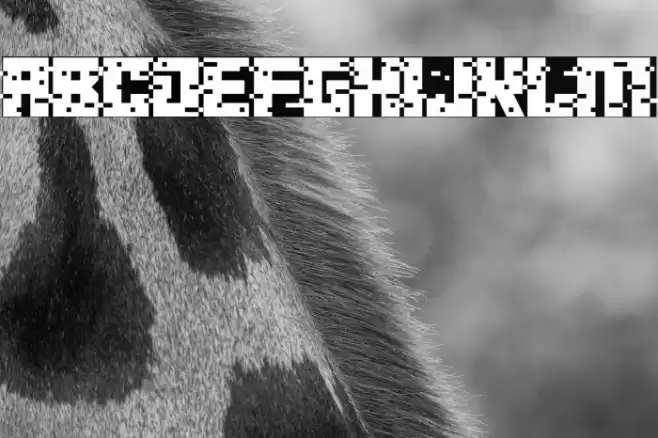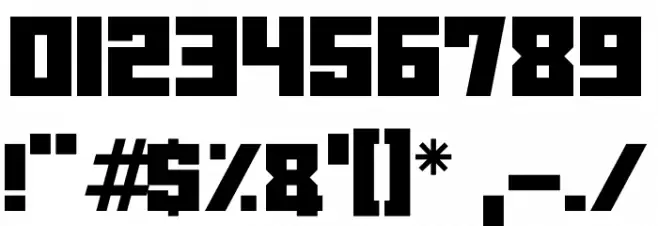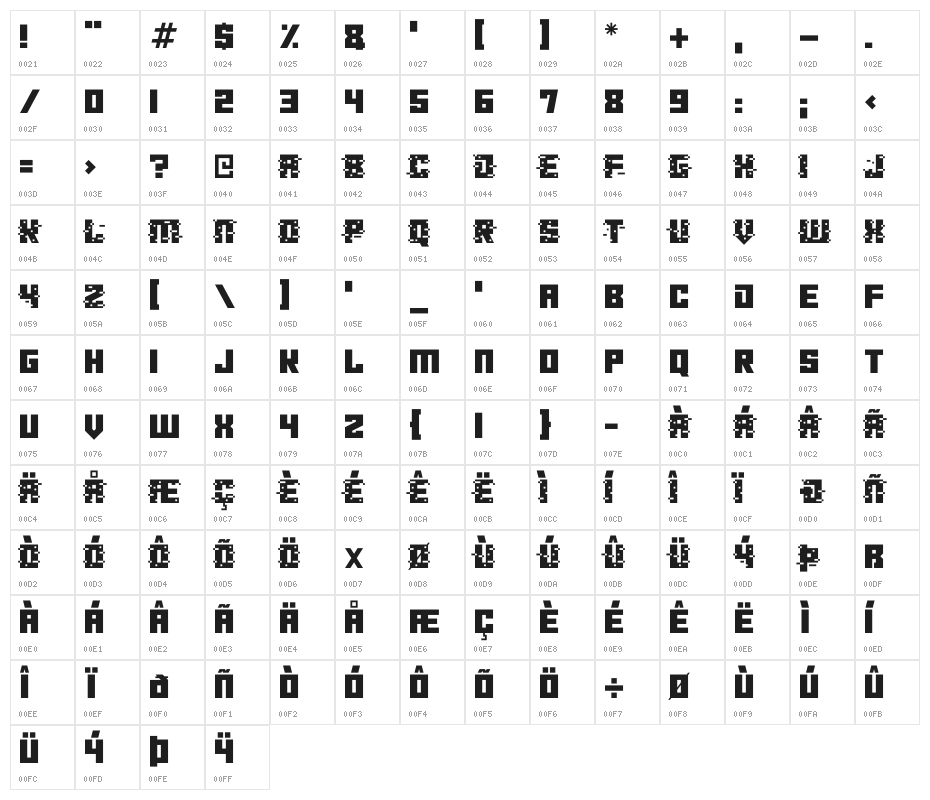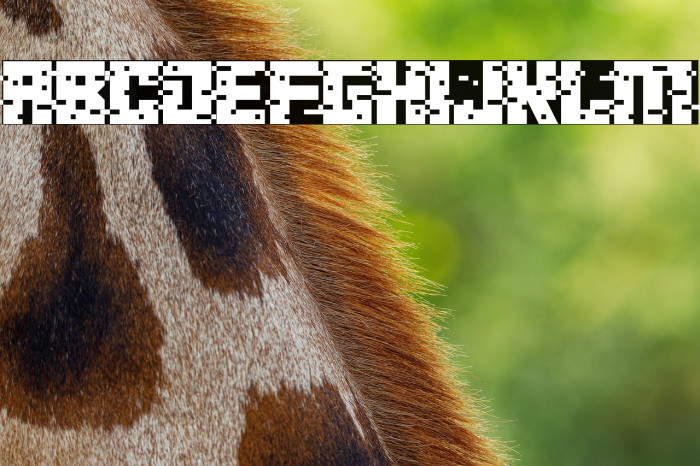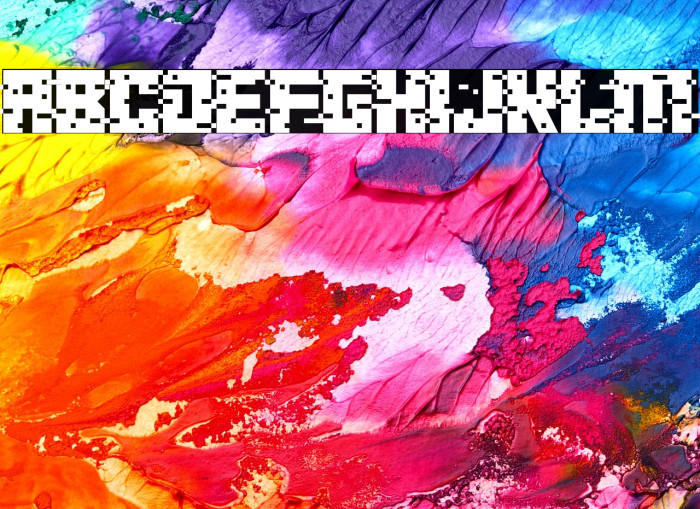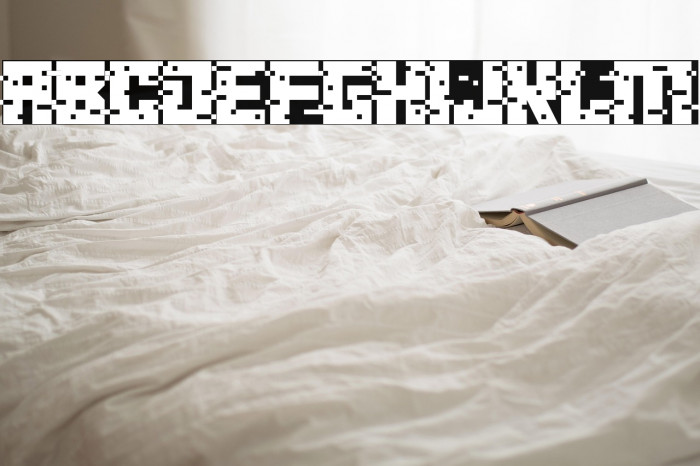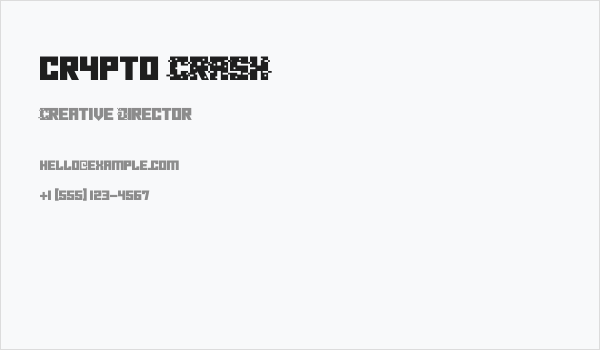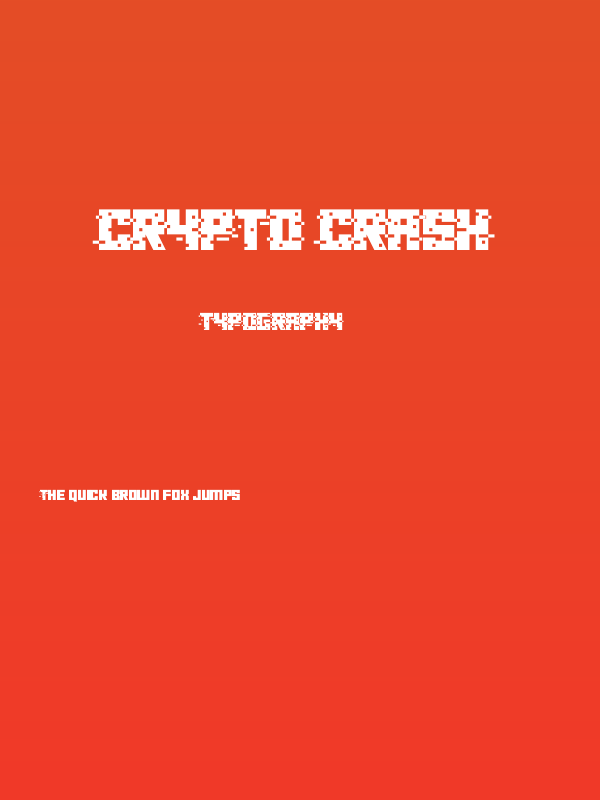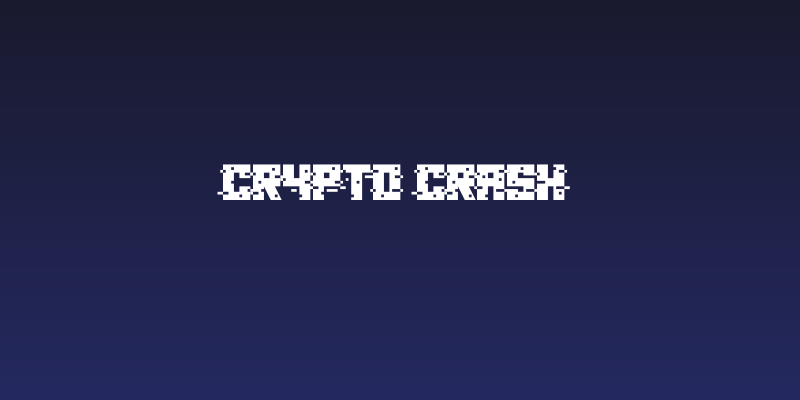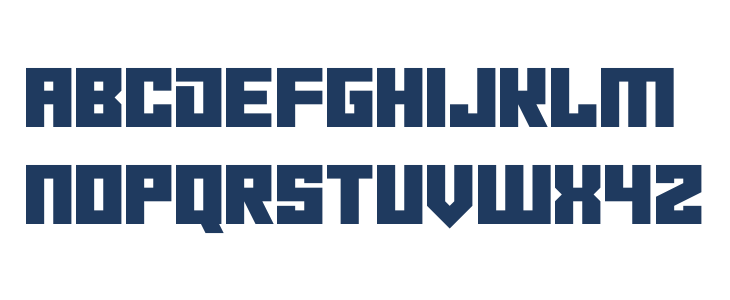
crypto CRASH Font
crypto CRASH Description
This font features a bold, blocky design with a digital, pixelated aesthetic. The uppercase letters are uniform in height, with sharp angles and a distinct geometric style. The numbers and special characters maintain the same boldness and angularity, ensuring consistency across all glyphs. The font's design is reminiscent of retro video game graphics, making it ideal for projects that require a futuristic or tech-inspired look. Its strong presence and unique style make it stand out, while the pixelated effect adds a layer of complexity and interest.
A bold, pixelated font with a digital, geometric style from Uncategorized fonts.
- Proposed Projects: Ideal for video game graphics, tech branding, digital art projects, and futuristic-themed designs.